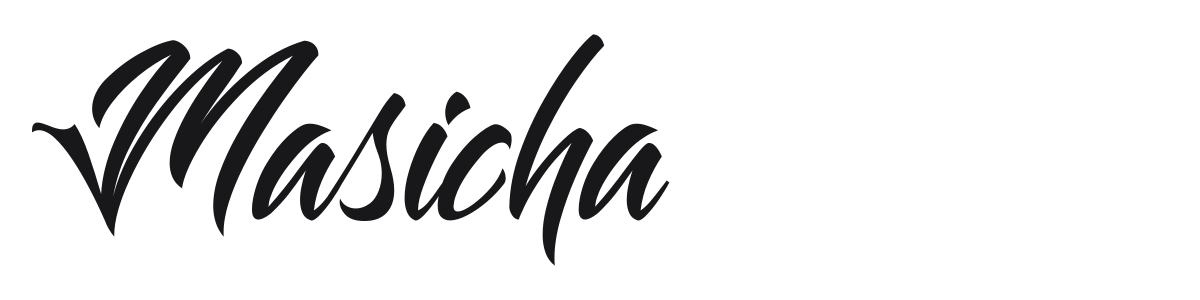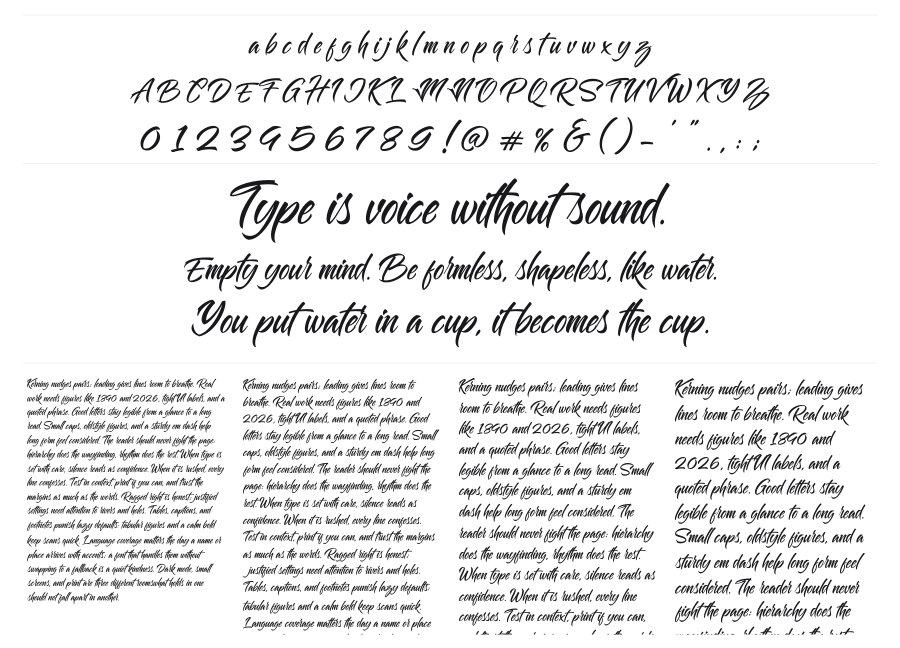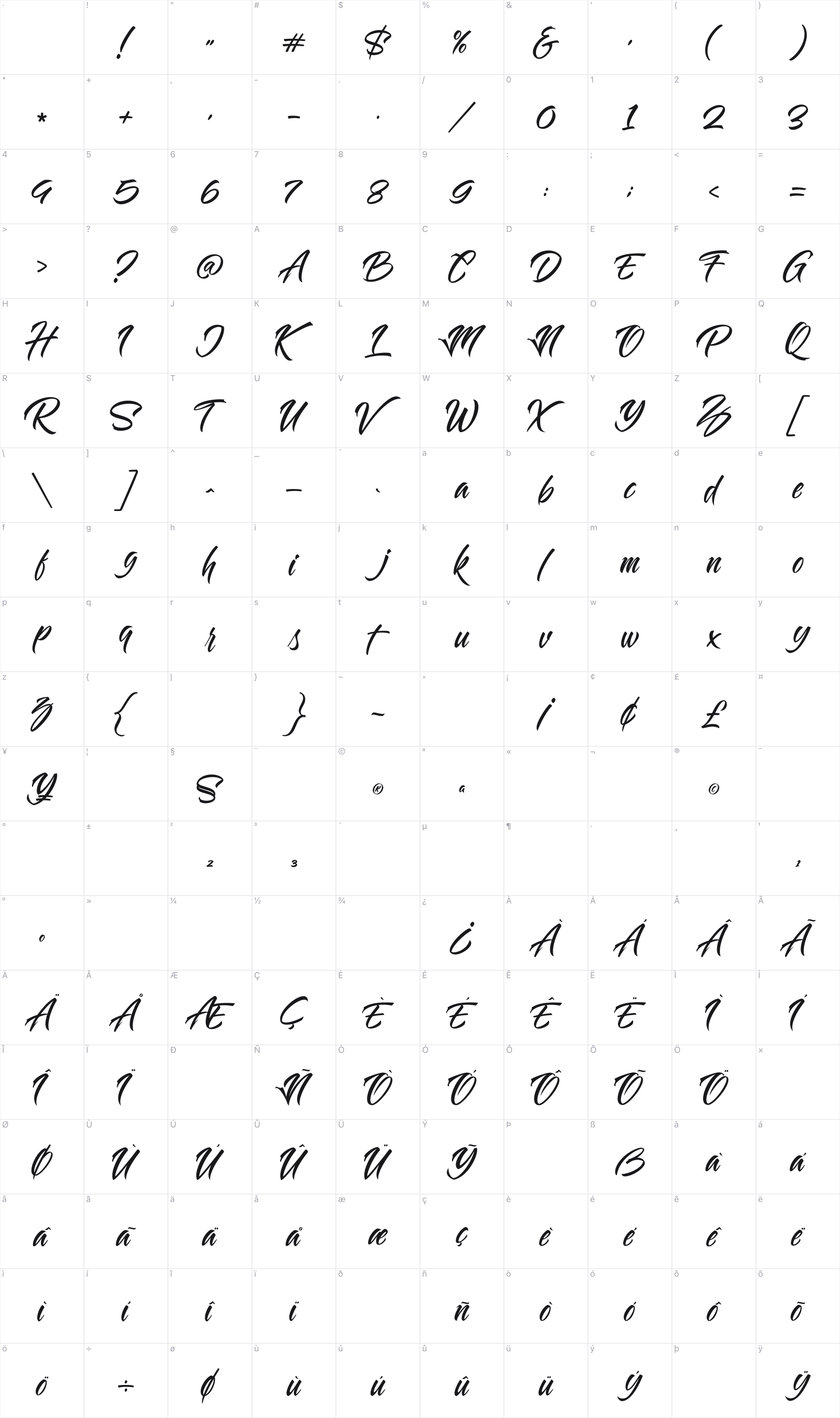
Masicha
Masicha is a bold brush script with the raw energy of authentic hand lettering. Thick downstrokes and wispy hairline upstrokes create strong contrast, while sweeping ascenders and descenders give words a lively, connected rhythm. It brings immediacy and personality to logos, posters, packaging, and any headline that needs a human touch.